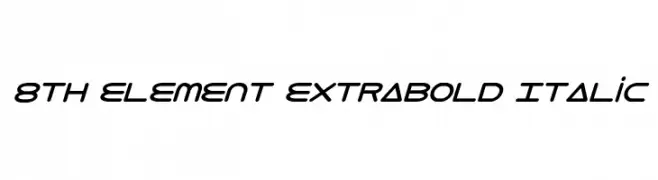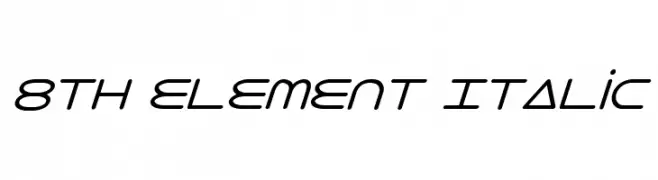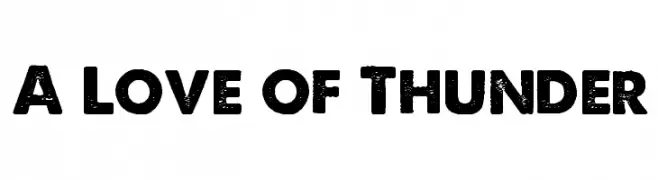
• 8th Element Bold
A futuristic, geometric font with angular and rounded elements.
• 8th Element Bold Italic
A bold, italic, futuristic font with rounded characters and a sleek design.
• 8th Element ExtraBold
A futuristic, geometric font with bold, rounded characters and minimal contrast.
• 8th Element ExtraBold Italic
A futuristic, bold italic font with a dynamic and geometric style.
• 8th Element Italic
A futuristic italic font with geometric precision and dynamic style.
• A Font with Serifs
A serif font with a hand-drawn, artistic style and dynamic stroke widths.
• A Font with Serifs. Disordered
A bold, serif font with a distressed and disordered appearance.
• A Gothique Time
A gothic, distressed font with ornate and intricate letterforms.
• A Little Pot
A playful, hand-drawn font with a whimsical and friendly style.
• A Love of Thunder
A bold, distressed font with a vintage, rugged appearance.